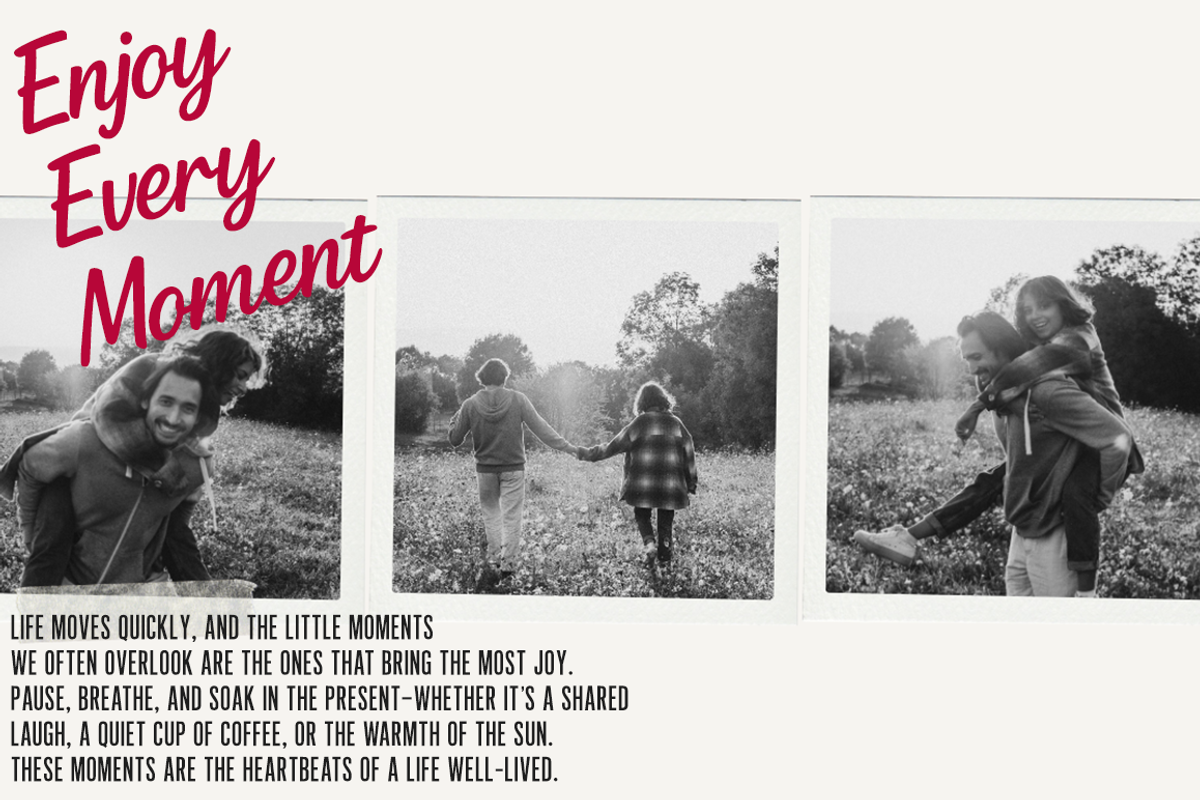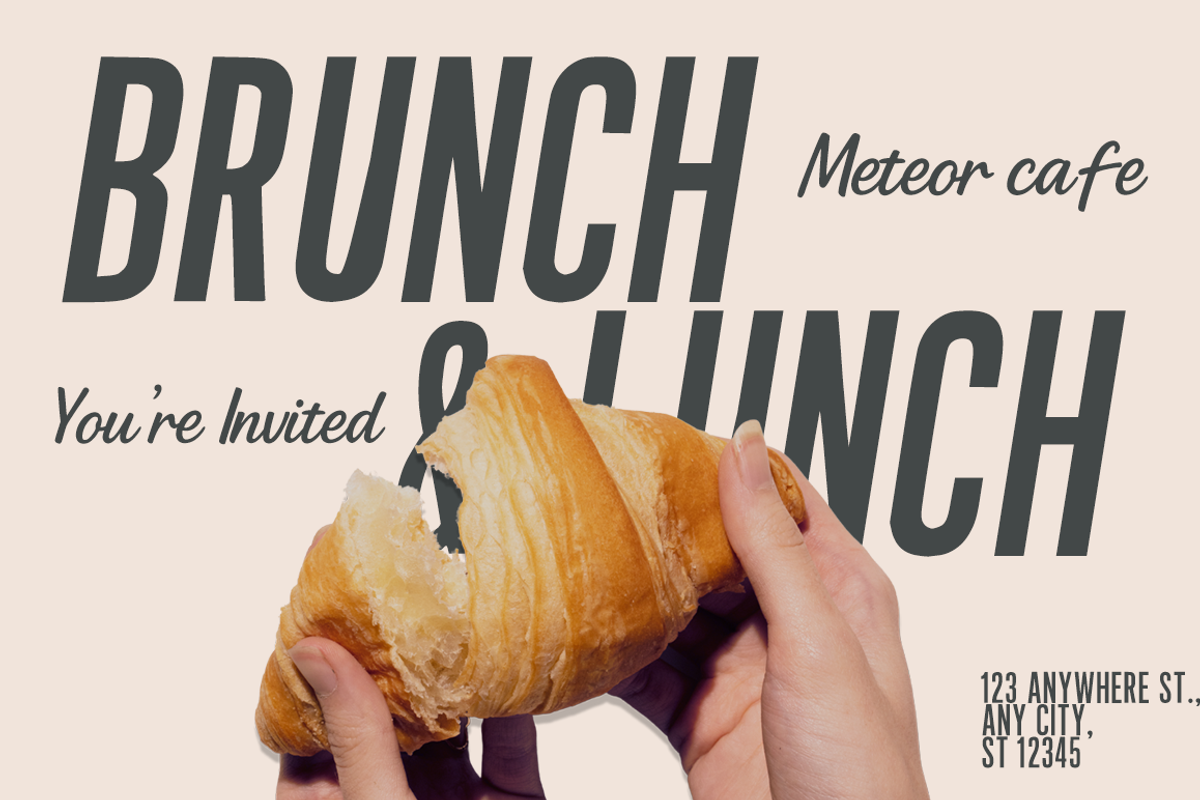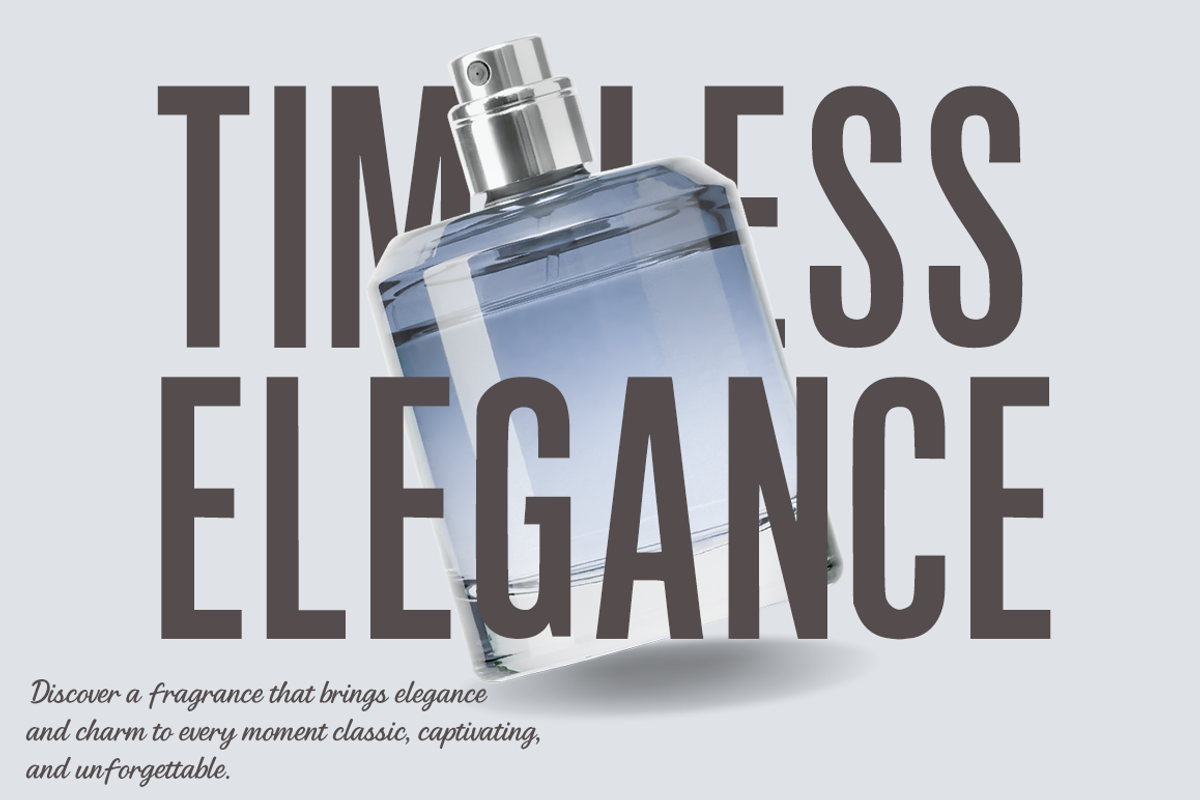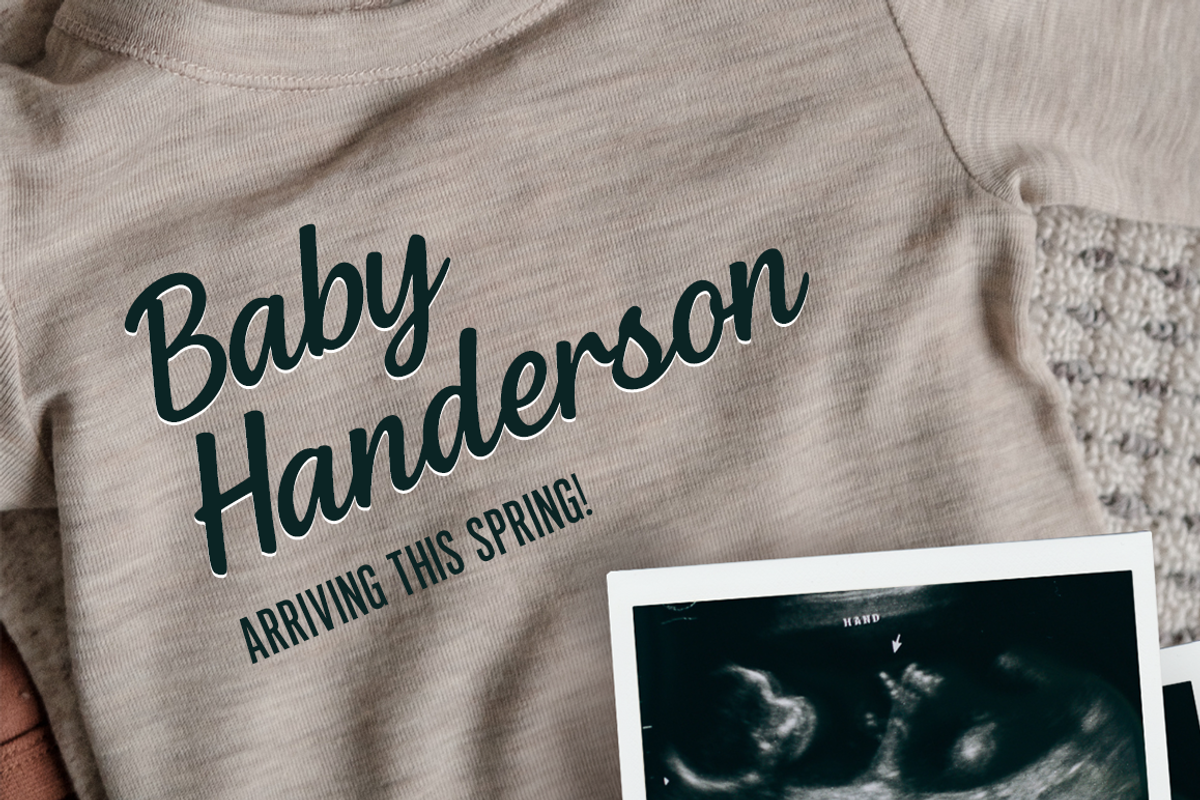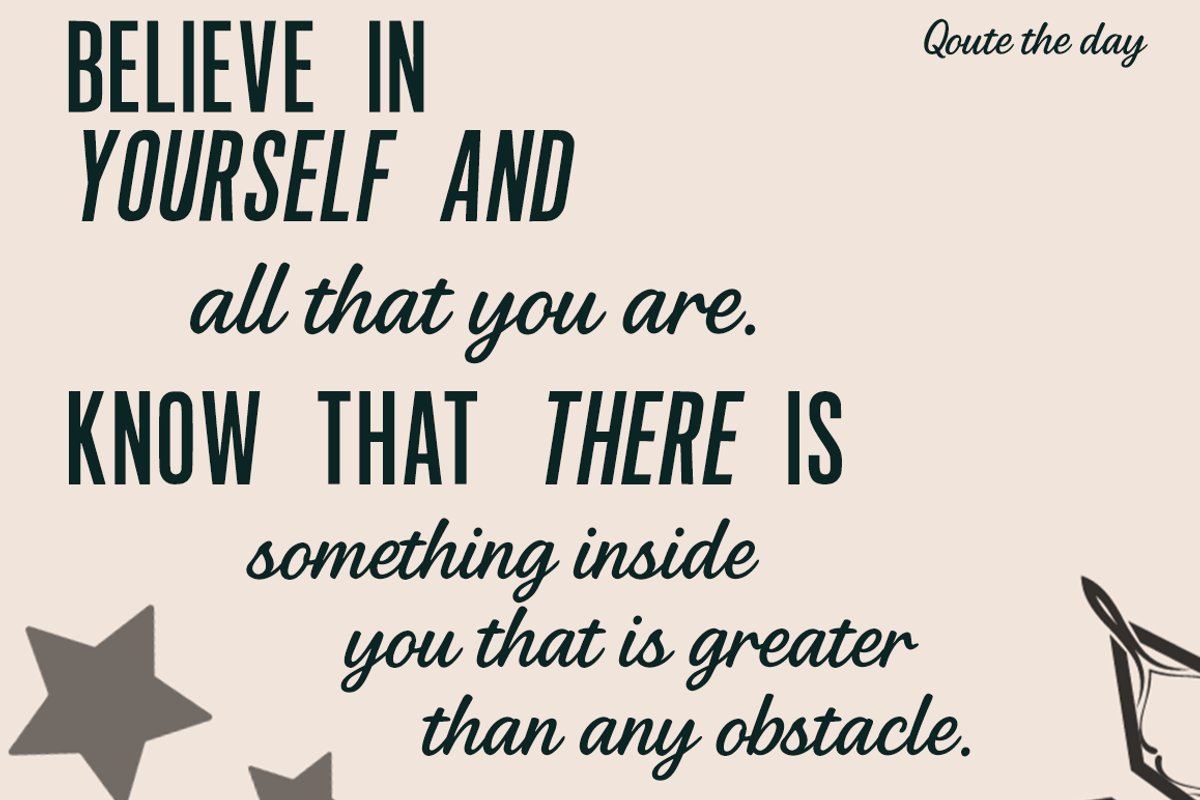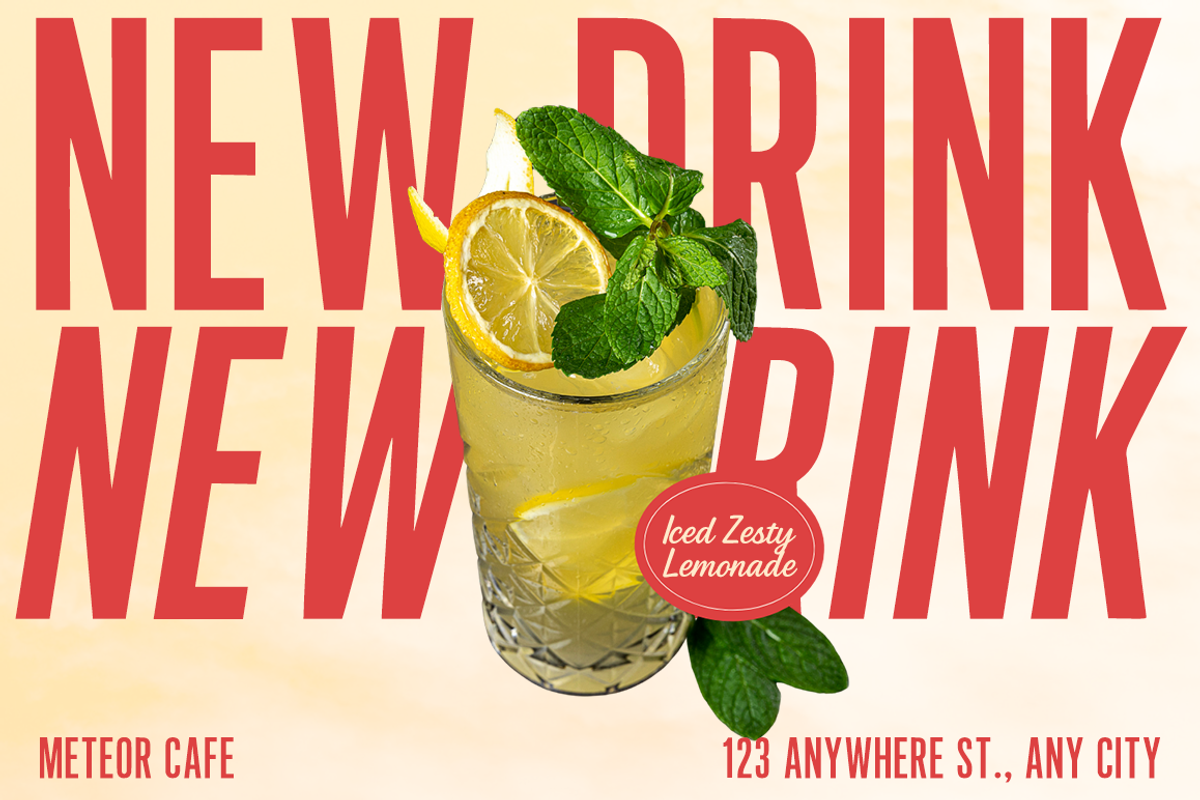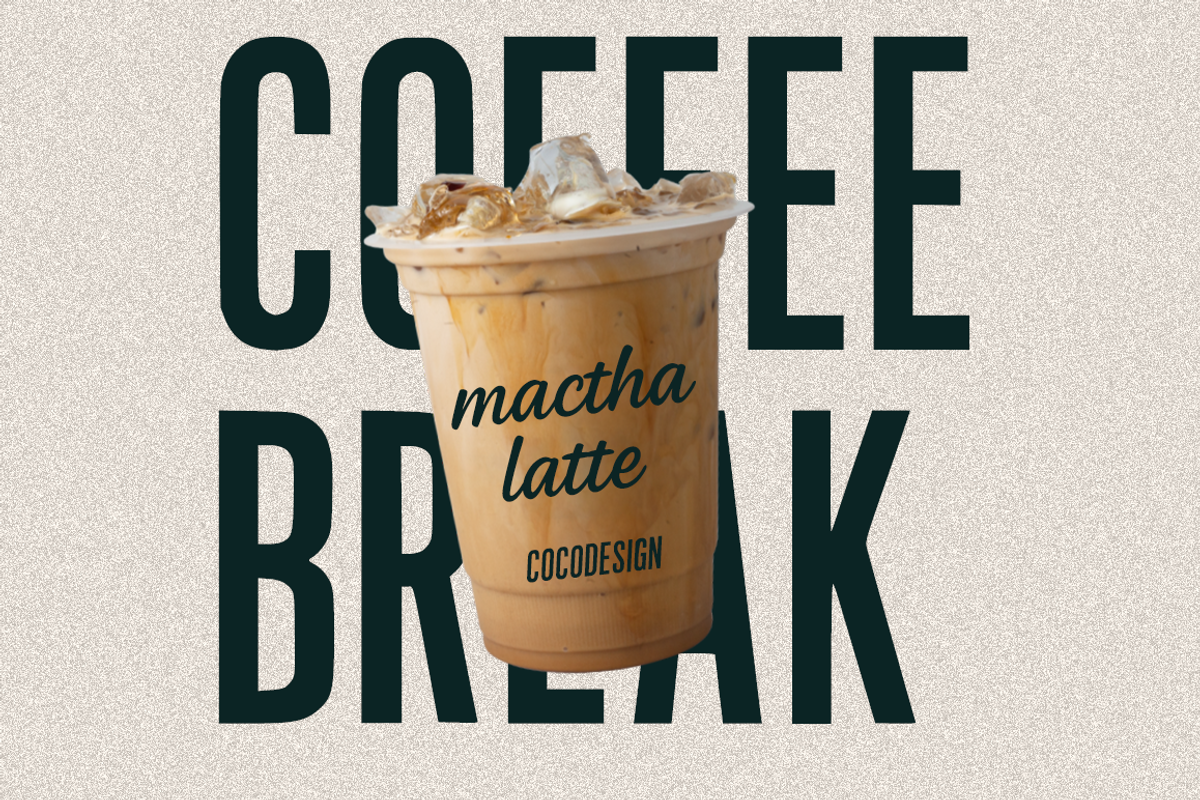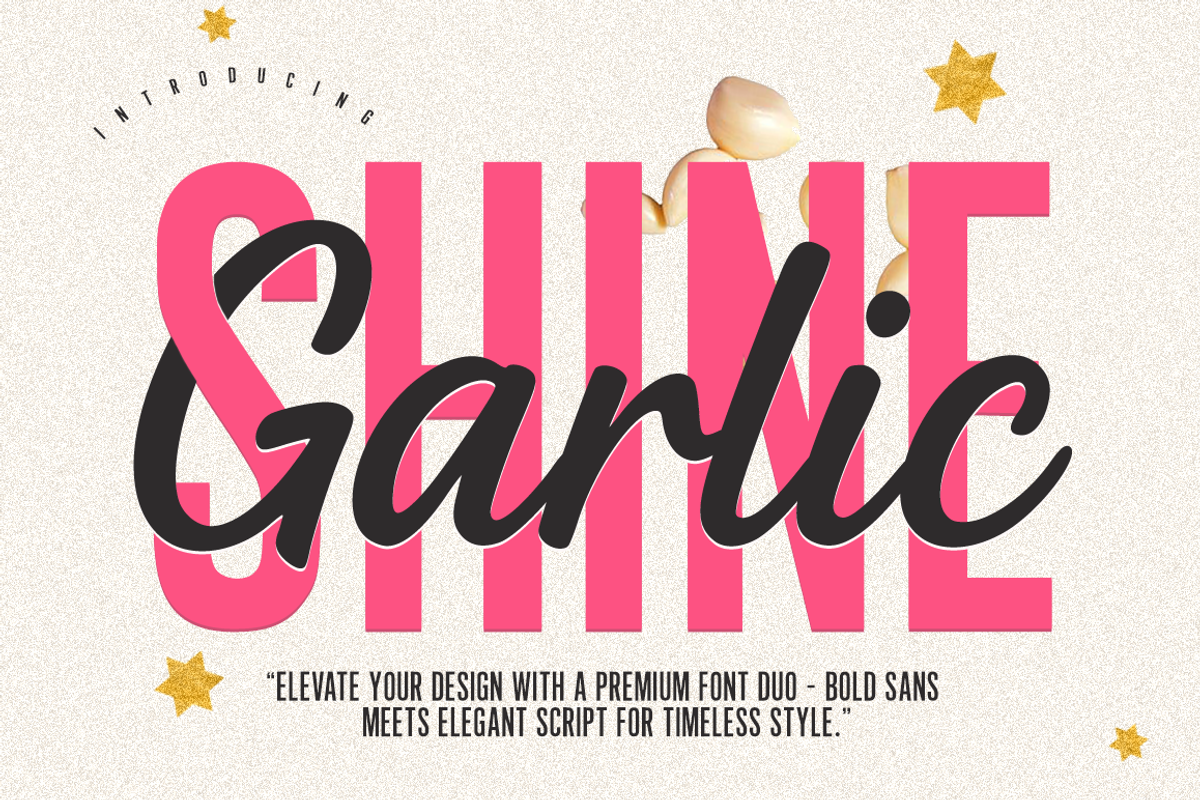
Garlic shine font duo
✨ Shine Garlic – Font Duo Bundle ✨
Shine Garlic is a premium font duo that combines a bold modern sans with an elegant handwritten script. This versatile pair creates a perfect balance of strength and sophistication, making it ideal for a wide range of design projects.